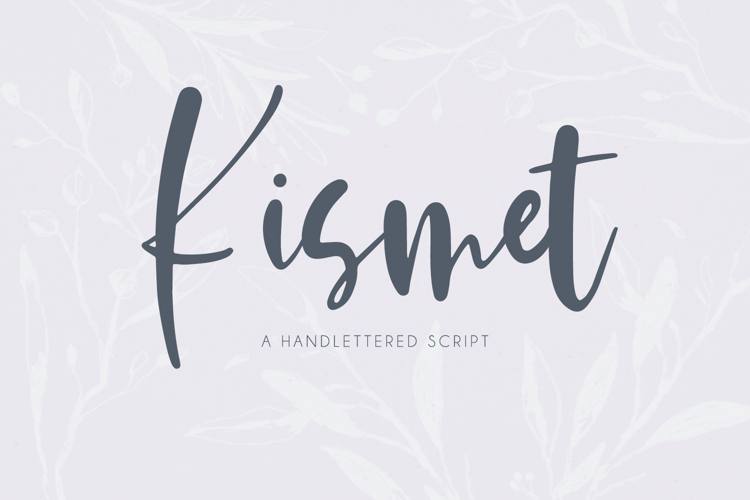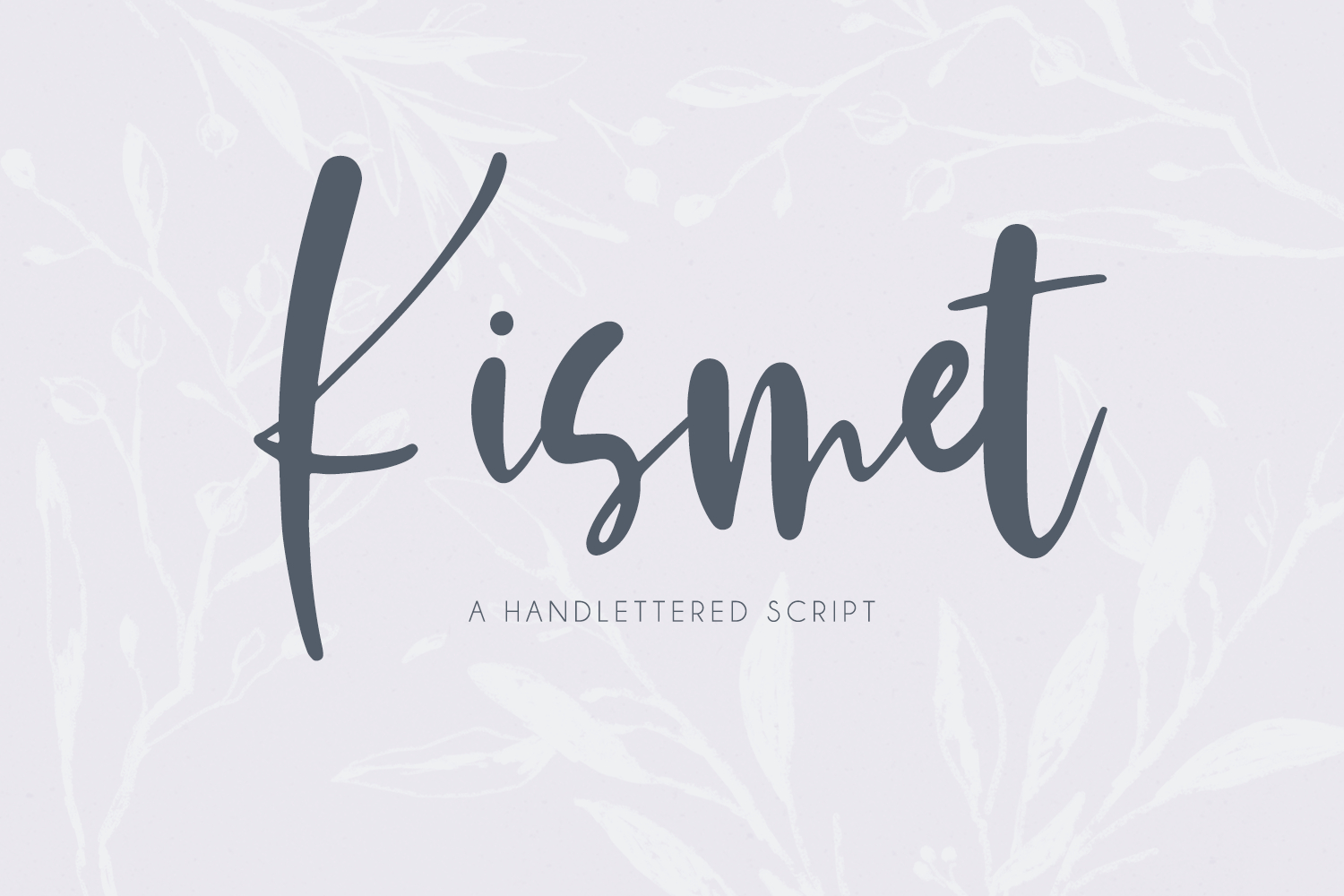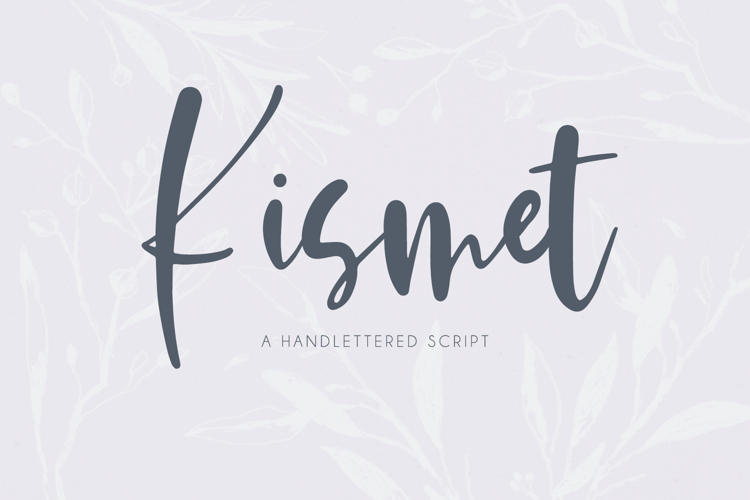
Kismet Script
Introducing Kismet, handlettered script font. Kismet’s destiny is to be added to your font collection. Kismet Script is the perfect combo of a little bubbly + a little messy. Kismet includes a set of lowercase alternates and some ligatures so that you can customize your text just a bit more!
Kismet Script is an excellent fit for:
- logo design + branding projects
- print design, like magazines & flyers that need a bold, slightly feminine script
- header elements + websites that draw attention
- crafting with a Silhouette or Cricut machine - it has a super clean edge for easy cutting!